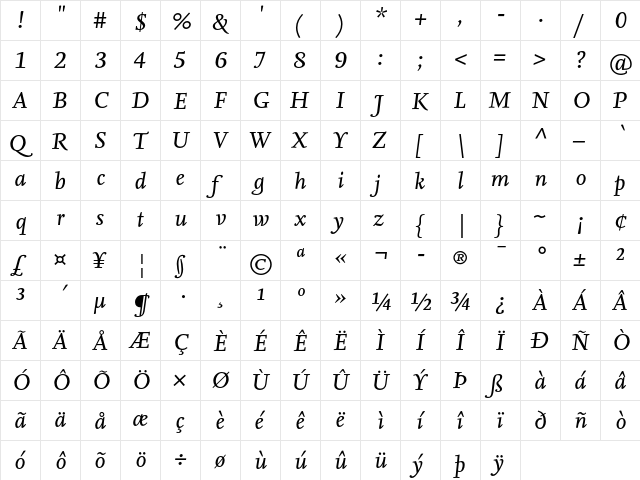
NexusSerifTF-Italic Regular Font Preview
NexusSerifTF-Italic Regular
NexusSerifTF-Italic Regular Font Details
Design Context for NexusSerifTF-Italic Typeface
NexusSerifTF-Italic carries the refined structure of traditional serif typography, with bracketed terminals and considered proportions that communicate credibility and craft. Its italic angle brings a sense of urgency and motion to the letterforms.
Pro Tip: Use NexusSerifTF-Italic for editorial body copy and considered headline work. Pair with a neutral sans for UI elements or captions to create a classic hierarchy.